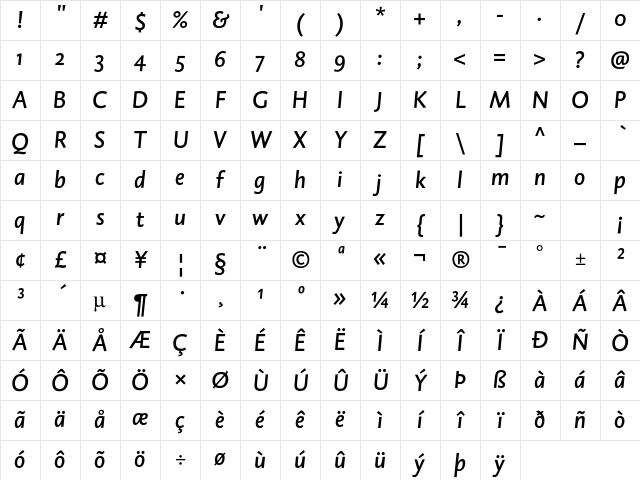
Complete DTLCaspariST MediumItalic glyph index. Displaying only characters natively supported by DTLCaspariST MediumItalic font.
DTLCaspariST is a composed and adaptable typeface that performs quietly and consistently across a wide range of design contexts. The slanted form adds forward momentum and visual energy.